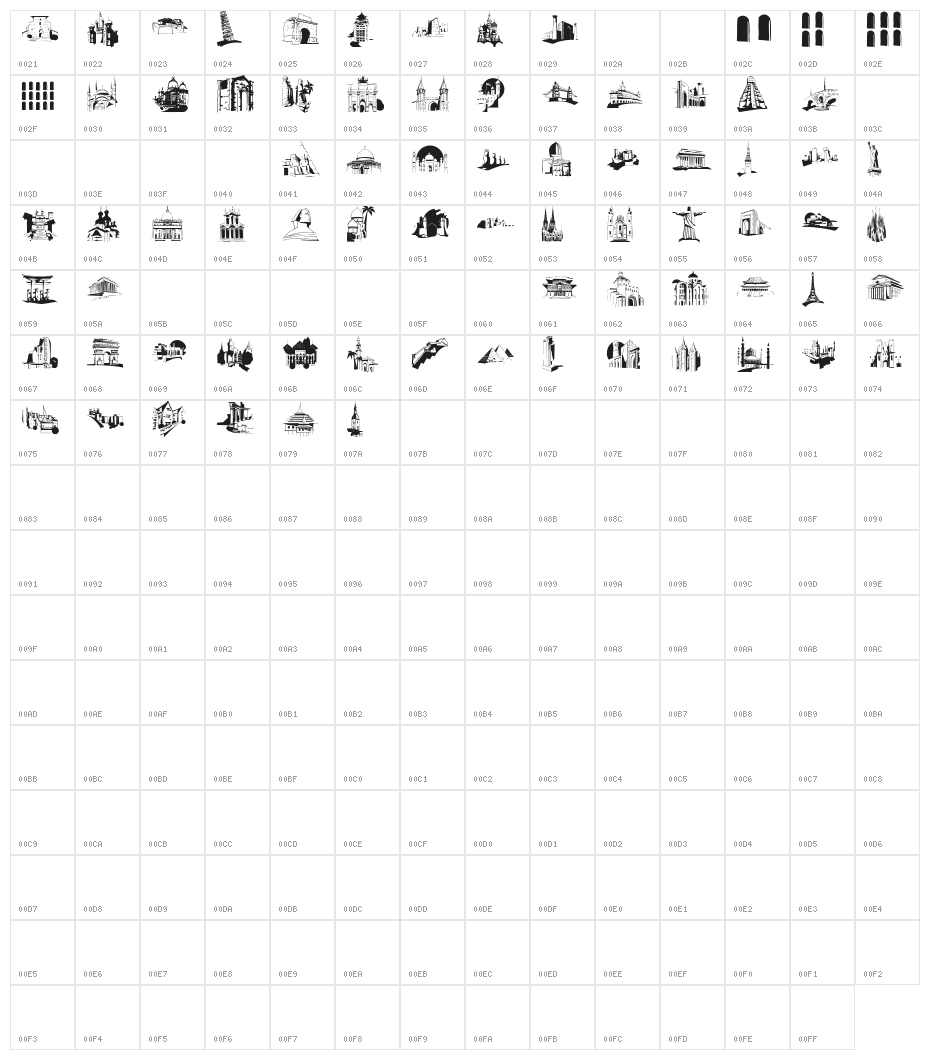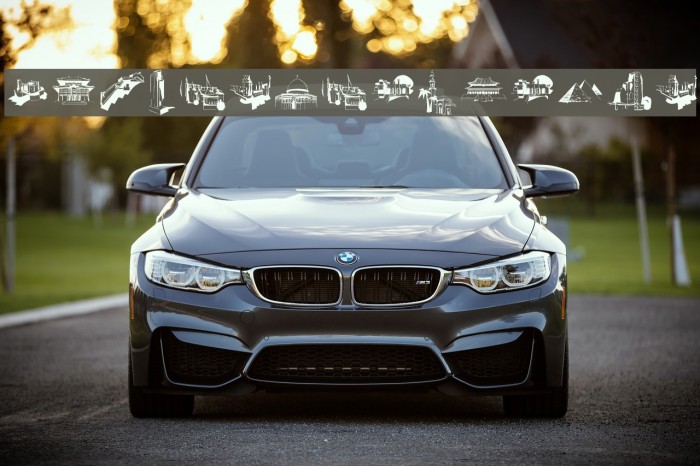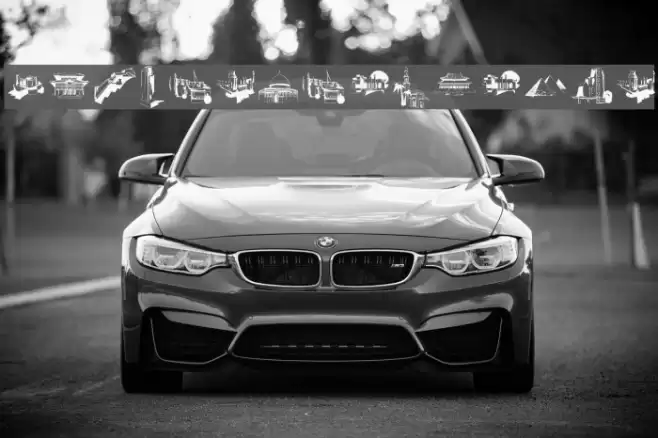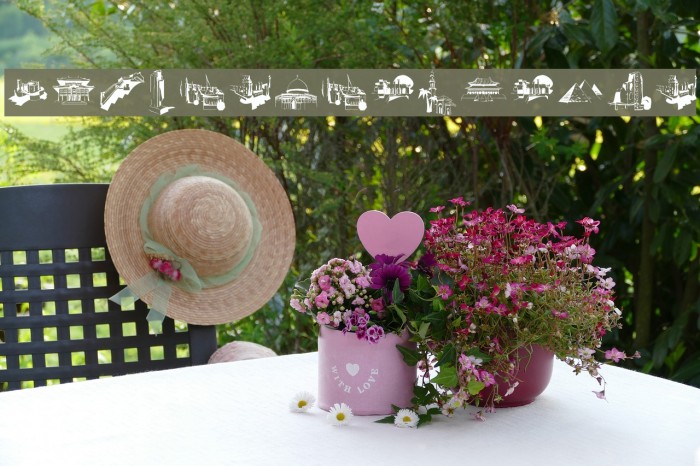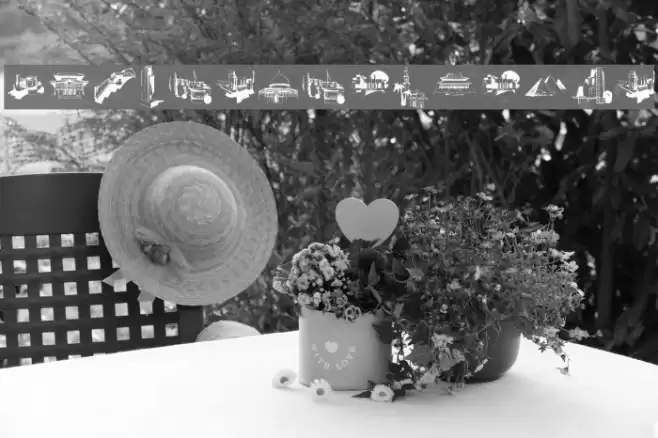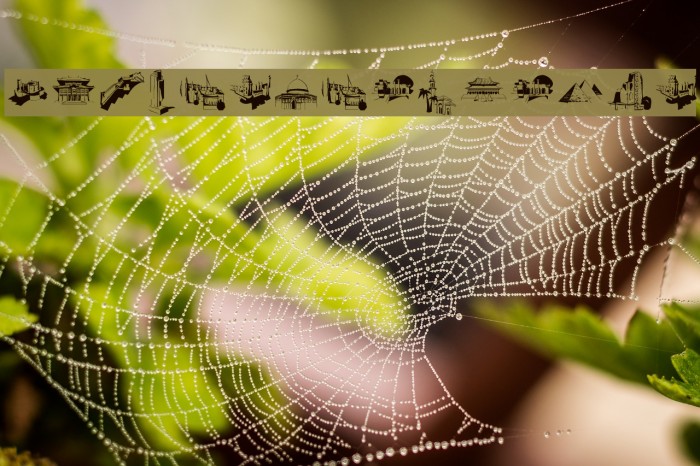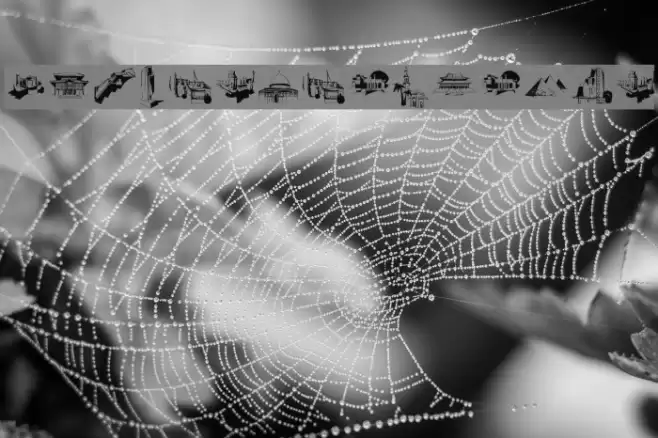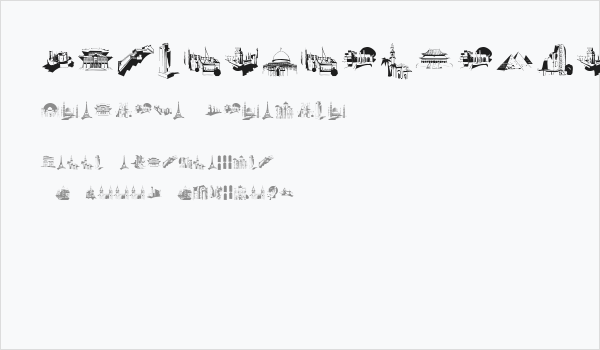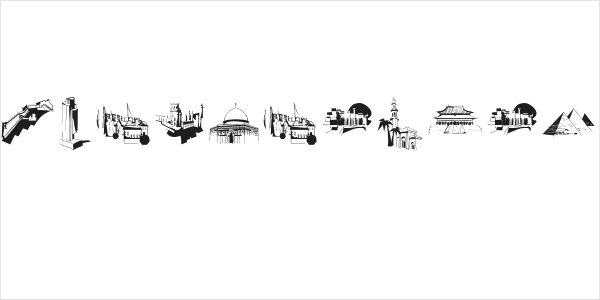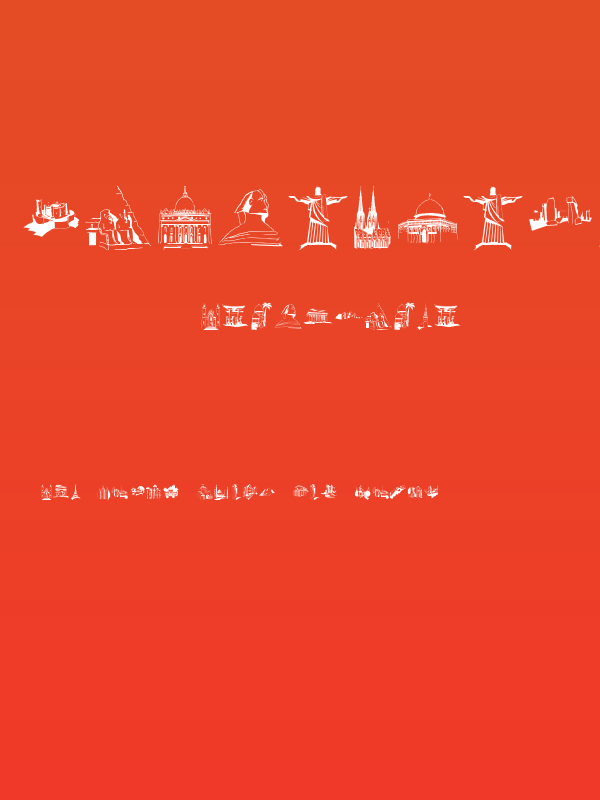
FamousBuildings Font
FamousBuildings Description
A decorative display font featuring detailed black-and-white silhouette illustrations of famous buildings and landmarks from around the world, each glyph representing a unique architectural icon with high visual contrast and intricate line work.
| Overall Style | Decorative, Illustrative, Thematic |
| Use Case | Logos, Headlines, Posters, Themed graphics |
| Proposed Projects | Travel posters, educational materials, tourism branding, event invitations, themed infographics. |